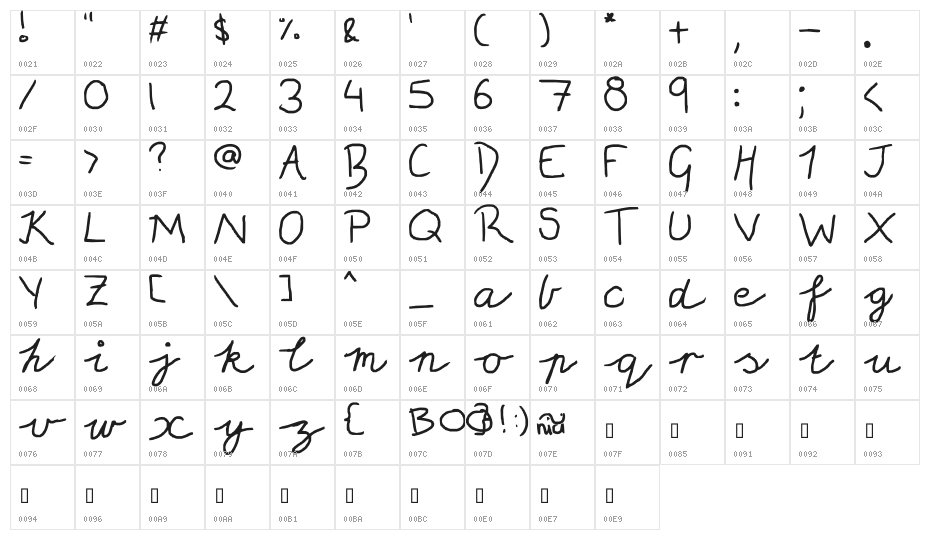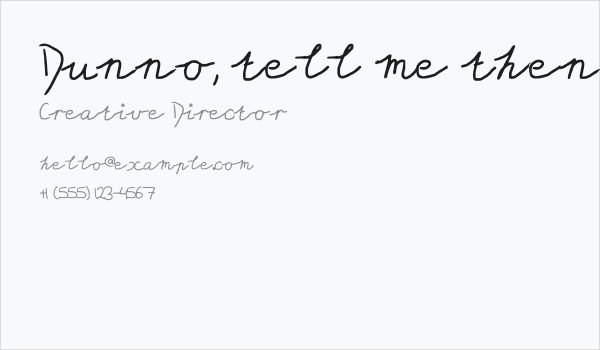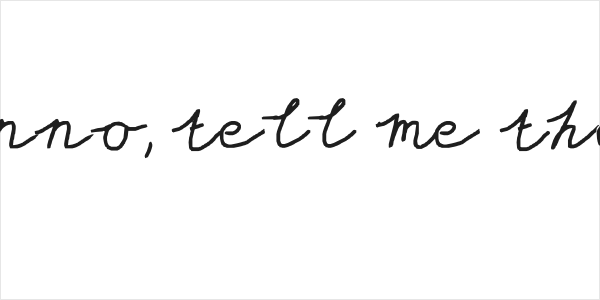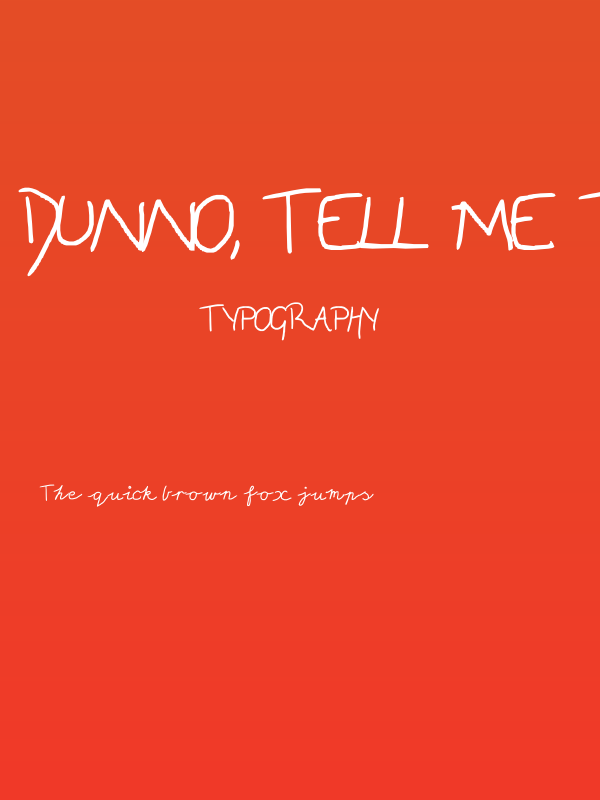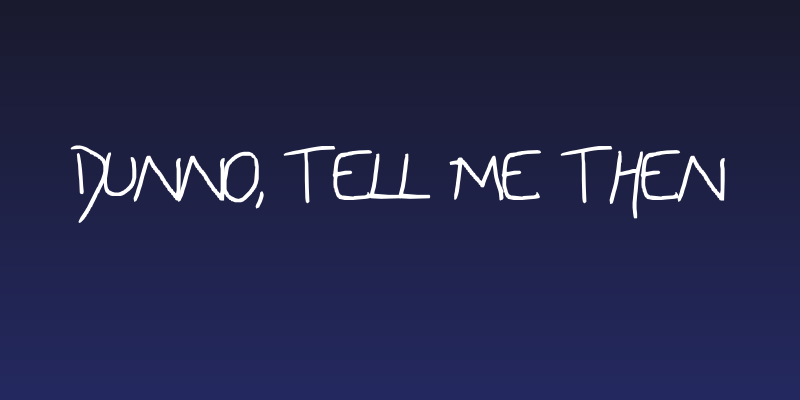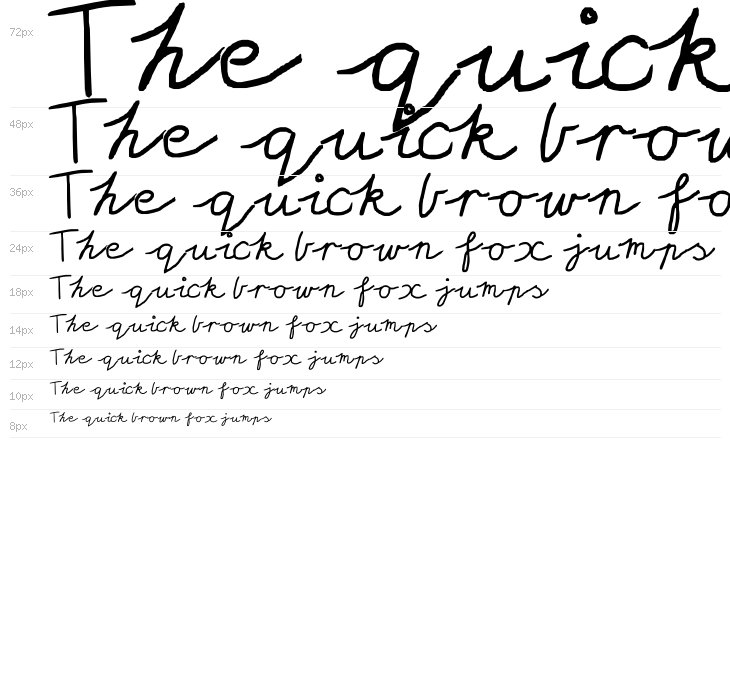
Dunno, tell me then Font
Dunno, tell me then Description
This font exhibits a playful and casual handwritten style, characterized by its irregular and dynamic strokes. The uppercase letters have a bold, slightly slanted appearance, while the lowercase letters are more fluid and connected, resembling cursive handwriting. The numerals are distinct and maintain the same playful aesthetic, with varying stroke thicknesses that add to the overall informal feel. Special characters are creatively integrated, maintaining the font's whimsical nature. This font's unique style makes it stand out, offering a personal touch to any design.
| Use Case | Logos, Headlines, Informal Text |
| Proposed Projects | Ideal for personal projects, greeting cards, informal invitations, children's book covers, and creative branding. |